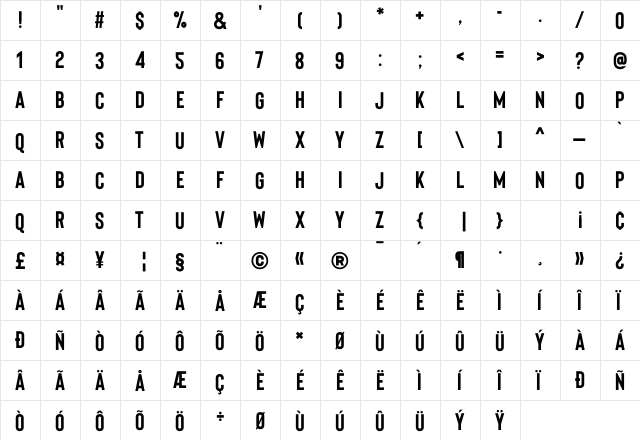
Bison Bold
| Foundry | Ellen Luff |
| Designer | Ellen Luff |
Design Context for Bison Typeface
Bison offers clean, dependable letterforms without strong stylistic allegiance, making it a practical choice for designers who need flexibility. The heavy weight commands attention and anchors typographic hierarchies.